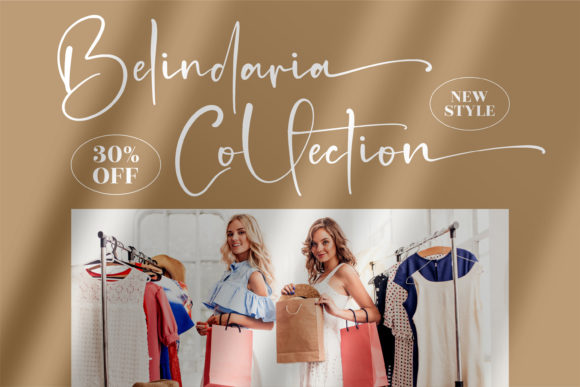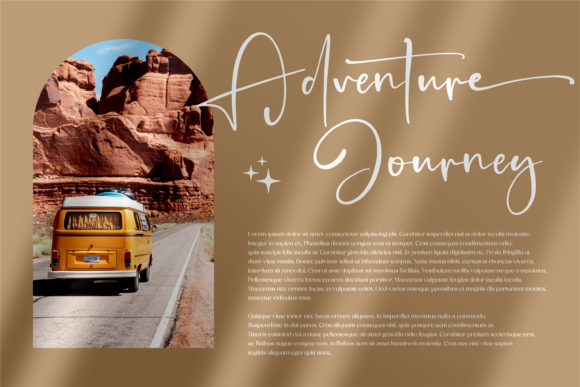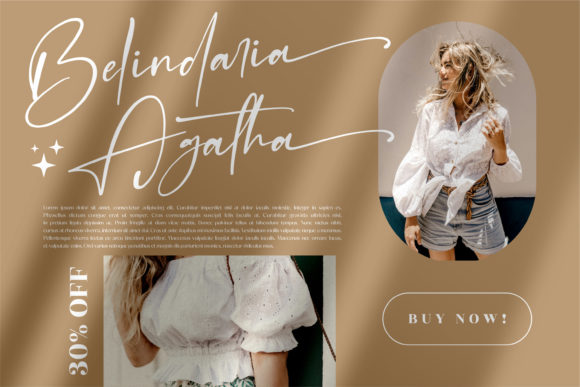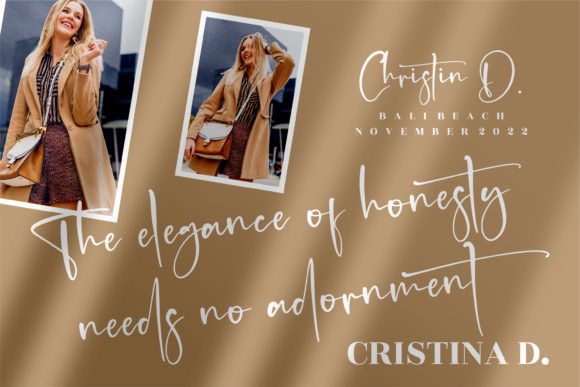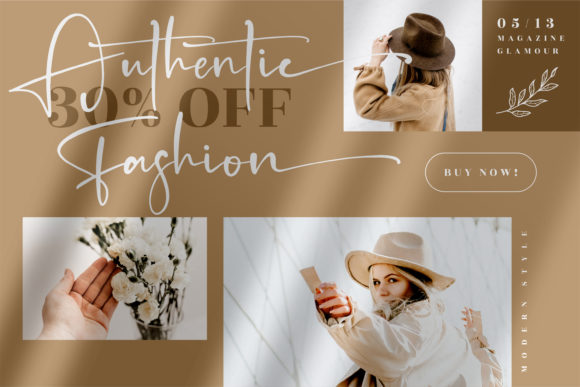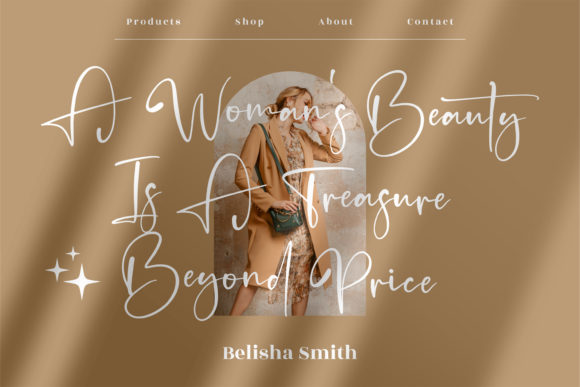
Discover the Timeless Elegance of Brandon Smith Font
As a designer, you know that inspiration can strike at any moment. It might be a stunning sunset, a vintage photograph, or even a beautiful font that sparks an idea. For me, it’s often the latter. Lately, I’ve been falling head over heels for the Brandon Smith Font – a lovely and thin lettered script font that adds a touch of sophistication to any design.
With its incredibly versatile style, the Brandon Smith Font is the perfect tool for designers looking to create spectacular designs that leave a lasting impression. Not only is it PUA encoded, making it easy to access all of the glyphs and swashes, but its elegant lines and curves also make it perfect for a wide range of projects, from wedding invitations to branding materials.
- Unique Characteristics: The Brandon Smith Font features a unique blend of modern and classic elements, with a focus on clean lines and elegant curves.
Brandon Smith Font Review
The Brandon Smith Font has its own unique charm, making it a great choice for designers looking to add a personal touch to their projects. ✨ The font’s hand-drawn feel and soft, rounded edges give it a warm and inviting appearance. It’s perfect for use in applications where you want to convey a sense of approachability and friendliness.
One of the standout features of the Brandon Smith Font is its extensive character set, which includes a wide range of languages and special characters. ✨ This makes it an excellent choice for designers working on international projects or those who need to include multiple languages in their designs.
- Hand-drawn feel and soft, rounded edges
- Extensive character set, including multiple languages and special characters
- Perfect for conveying a sense of approachability and friendliness
- May not be suitable for use in formal or professional applications
- Lack of bold and italic variations may limit its use in certain contexts
- May not be as readable in very small font sizes
- ⚠️ May not be suitable for use in applications where precision and clarity are paramount
Overall, the Brandon Smith Font is a solid choice for designers looking to add a touch of personality to their projects. While it may have some limitations, its unique charm and extensive character set make it a great option for a wide range of applications.
Tips for Getting the Most Out of the Brandon Smith Font
Use the Brandon Smith font for titles, headings, and short paragraphs to create a visually appealing and modern design.
Pair the Brandon Smith font with other sans-serif fonts for a clean and minimalist look.
Experiment with different font sizes and colors to create a unique and eye-catching design.
The Brandon Smith font is ideal for:
Business presentations and proposals
Marketing materials and brochures
Website headers and footers
Print materials such as business cards and flyers